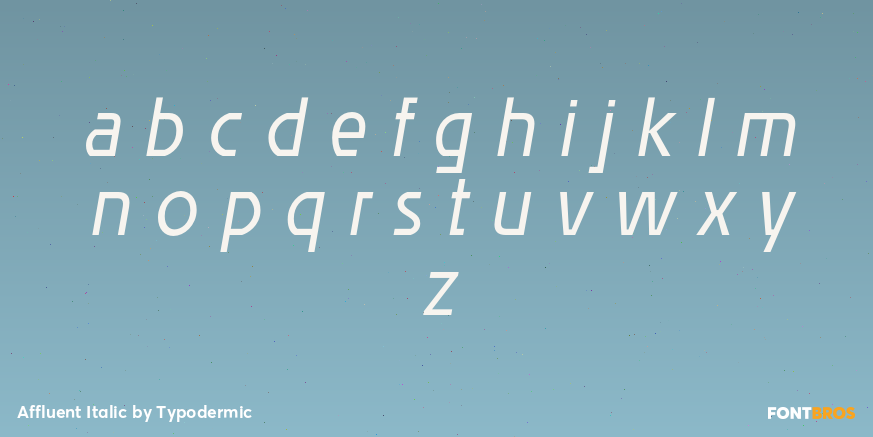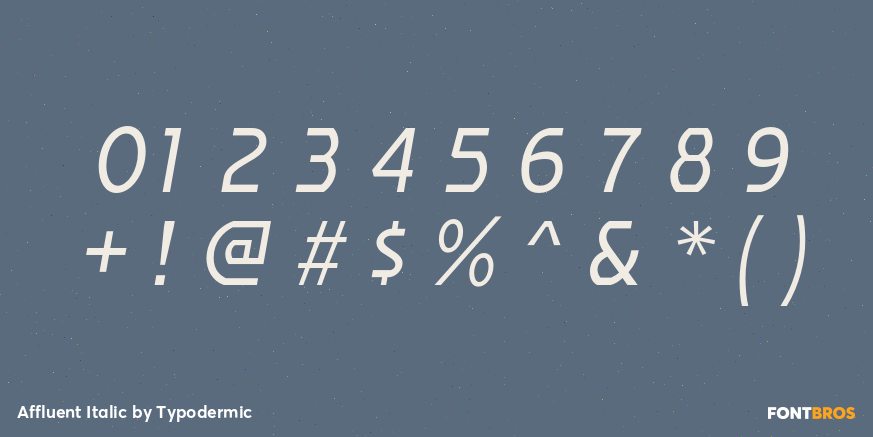
Affluent Italic
Affluent is an ugly typeface with a good reason for looking that way. It was designed near the end of the CRT era, when small lettering on inexpensive television displays could shimmer, blur, and break into colour fringes. Its near-horizontal strokes were quantized and sharpened in an attempt to reduce those problems, while its verticals were allowed to run more freely. The resulting letterforms are stiff, uneven, and unmistakably governed by a system.
That system is Affluent’s most useful quality. The construction is visible, but its purpose is not obvious. Little shelves, steps, and flattened curves suggest that the lettering has been adapted to an unfamiliar technical requirement. Like MICR characters encountered without any knowledge of magnetic-ink recognition, the shapes appear to obey rules established somewhere beyond the design itself. An unseen standards committee, proprietary display technology, procurement specification, or safety regulation seems to have decided that information must look this way.
This implied constraint can add bureaucratic depth to science-fiction world building. Most futuristic typefaces establish the genre through conspicuous geometry, segmented strokes, gaps, or streamlined proportions. Affluent takes a quieter route: it resembles an institutional sans distorted by some necessary but unexplained process. The lettering supplies evidence of a larger system without revealing how that system works. It can make a fictional technology feel as though it has accumulated standards, compatibility problems, and decades of administrative history.
That quality suits the ordinary infrastructure of invented worlds: specimen records, access credentials, pharmaceutical cartons, laboratory notices, equipment interfaces, identification plates, public-information screens, safety procedures, cloned-food labels, and internal documents from corporations engaged in programs they would prefer not to explain. It can suggest an underfunded research facility, an obsolete electronics manufacturer, or an institution whose technology was once considered advanced and has remained mandatory long after anyone remembers why.
Affluent also belongs naturally to the less glamorous side of turn-of-the-millennium technology: diagnostic displays, cable-TV graphics, instruction screens, electronics packaging, DVD menus, karaoke machines, off-brand game hardware, and fictional operating systems assembled under severe budgetary constraints. In electronic-music graphics, its awkward rhythm can evoke electroclash flyers, industrial-techno releases, pirate-radio schedules, track listings, and venue projections made with unfashionable software.
Affluent never acquired the elegance its name promises; it sounds less like the typeface than the corporation responsible for it.